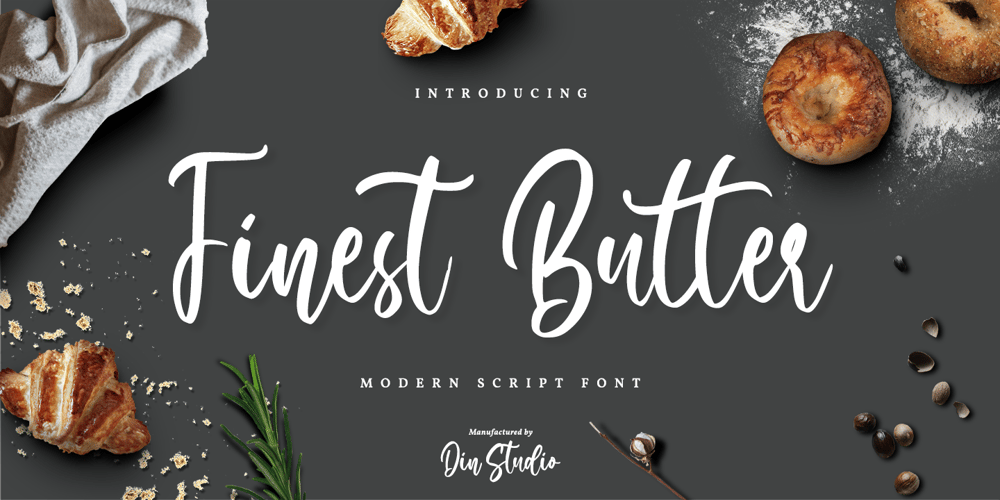
Finest Butter Font Family was designed by Donis Miftahudin and published by Din Studio. Finest Butter contains 1 styles and family package options. Finest Butter is a modern script font. Made for any professional project branding. It is the best for logos, branding and of quotes. Every letter has a unique and beautiful touch.Features: Beautiful Ligatures Multilingual Support PUA Encoded Numerals and Punctuation Thank you for downloading premium fonts from Din Studio